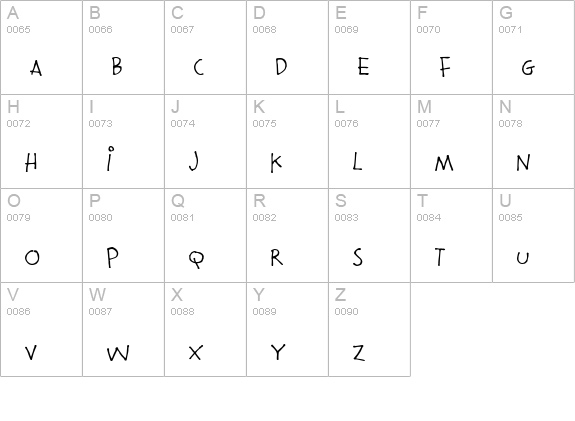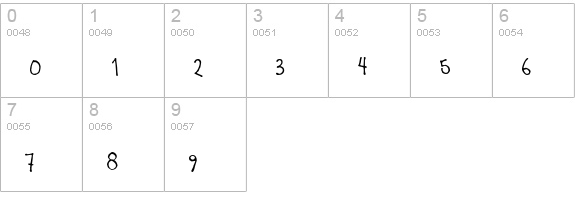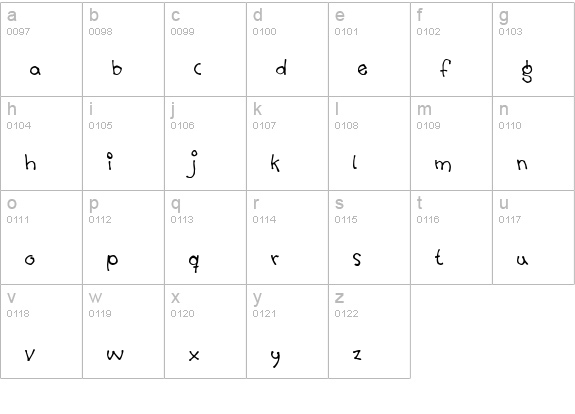
Mouthful of beer Font Details
Mouthful of beer font is a playful and unique typeface that captures the essence of a refreshing sip of your favorite brew. With its bold and dynamic character shapes, this font exudes a sense of fun and energy, making it perfect for projects that need a touch of whimsy. What sets Mouthful of beer font apart is its free-spirited style, which adds a touch of personality to any design. Whether you're creating a beer-related branding or simply want to inject some lightheartedness into your project, this font is sure to make a statement. Best of all, Mouthful of beer font is freely available to download at FontsMarket.com, so you can start using it right away without any hassle. Elevate your designs with this charming and eye-catching font today!